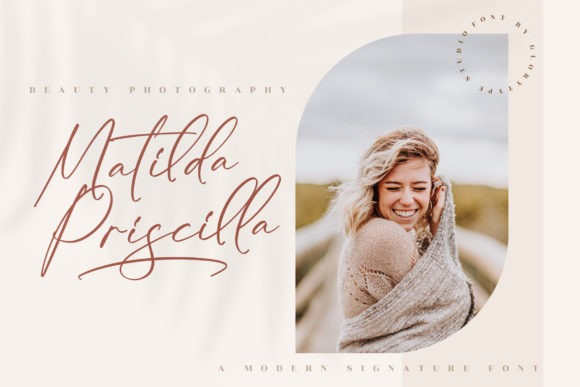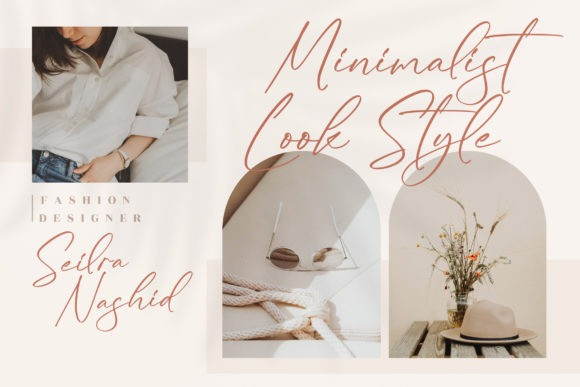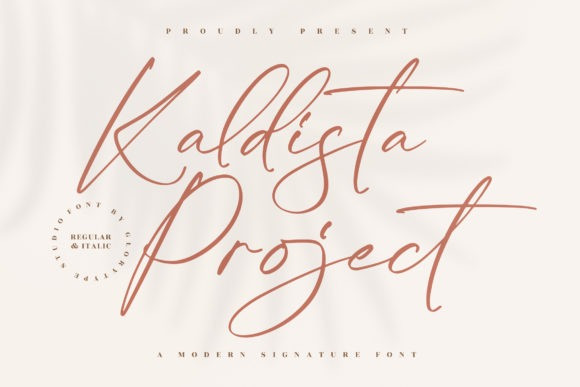
Kaldista Project Font
Kaldista Project Font – Modern Signature Font , from Glorytype Studio, suitable for any projects such as: logos, branding projects, homeware designs, product packaging, mugs, quotes, posters, shopping bags, t-shirts, book covers, name card, invitation cards, greeting cards, label, photography, watermark, special events, and all your other lovely projects that need a beautiful script taste.